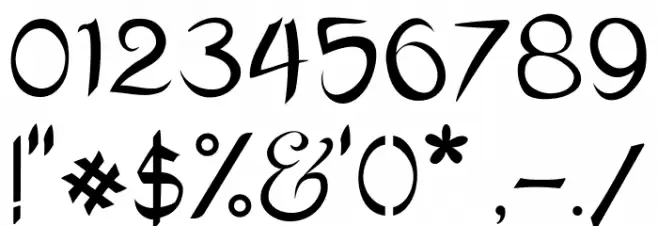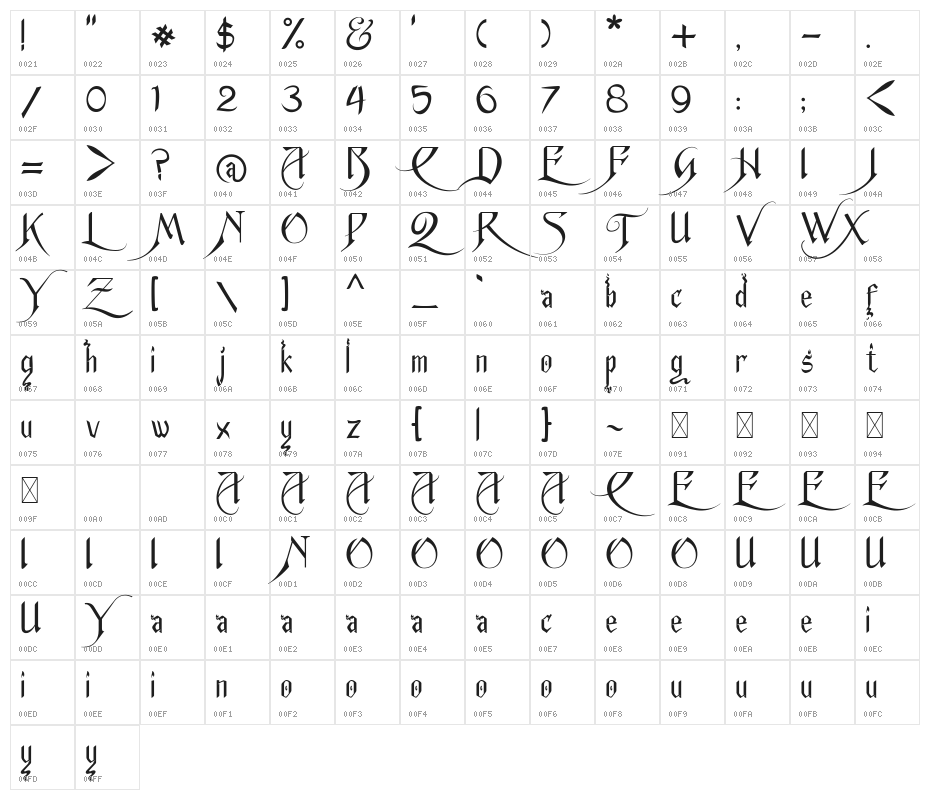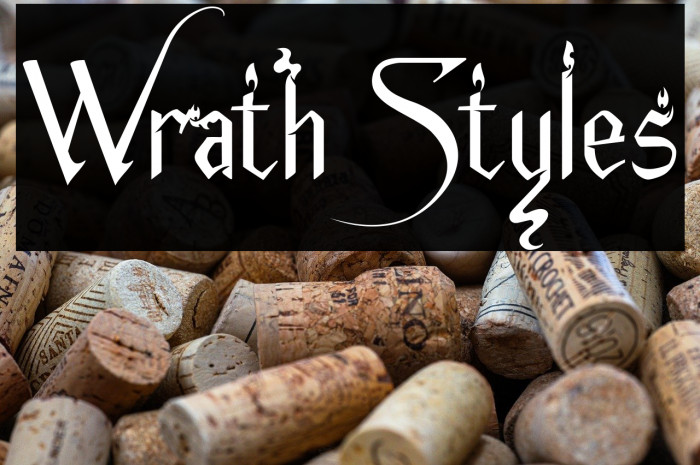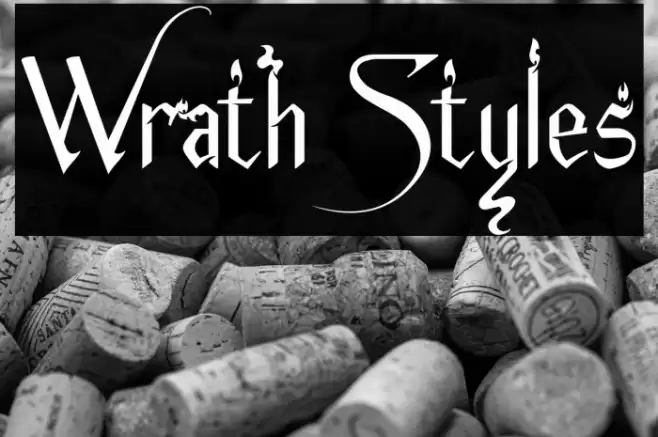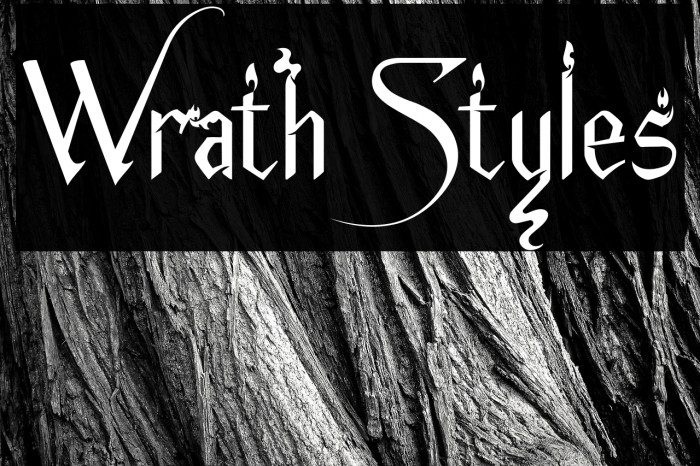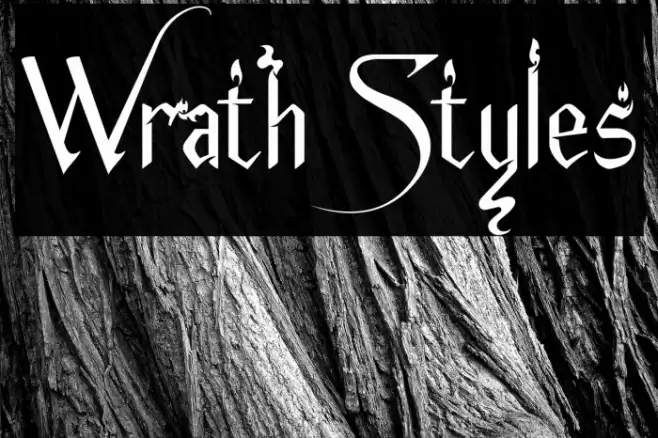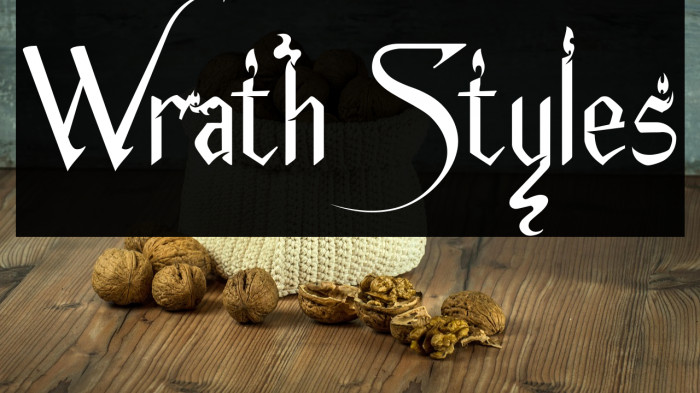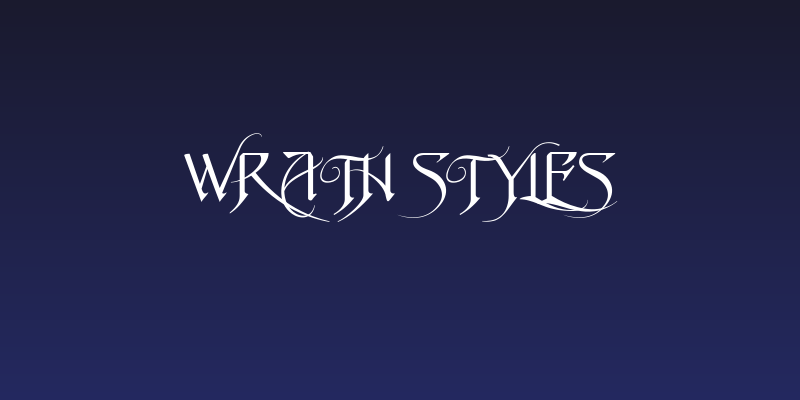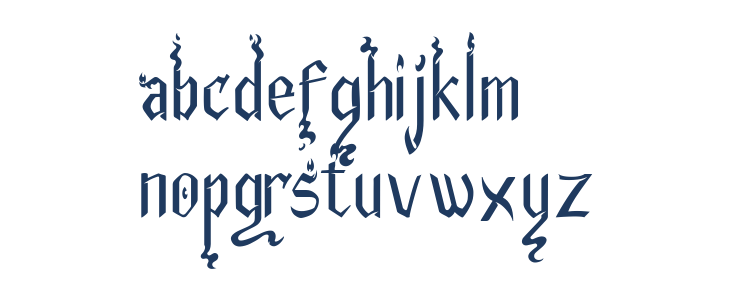
Wrath Styles Font
Wrath Styles Description
This font exhibits a striking and dramatic style, characterized by its sharp, angular lines and intricate detailing. The uppercase letters are particularly elaborate, with sweeping curves and pointed serifs that give a sense of movement and flair. The lowercase letters maintain a consistent style, though they are slightly more restrained, allowing for better readability. The numbers and special characters follow the same aesthetic, ensuring a cohesive look across all elements. This font's unique design is reminiscent of gothic or medieval calligraphy, making it stand out with its bold and artistic flair.
| Proposed Projects | Ideal for projects requiring a bold and artistic touch, such as book covers, posters, or branding for edgy or alternative products. |